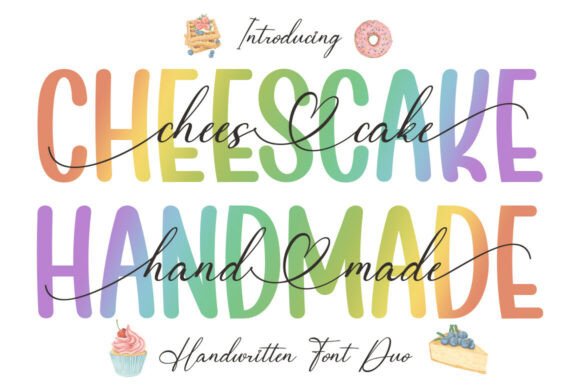
Introducing Cheescake Handmade Duo Font: Add a Romantic Touch to Your Creations
In the world of typography, fonts play a crucial role in conveying emotions and setting the tone for various creative projects. If you’re looking for a stylish and delicate duo font that can add a romantic touch to your designs, look no further than Cheescake Handmade Duo. This beautiful font is a perfect combination of display and script fonts, making it suitable for a wide range of applications, from greeting cards to headlines.
Key Features of Cheescake Handmade Duo Font
- Stylish and Delicate Design: Cheescake Handmade Duo boasts a unique and elegant design that is sure to capture the attention of your audience. Its delicate strokes and stylish curves make it perfect for creating romantic and whimsical designs.
- Duo Font: This font comes with two font styles – display and script. The display font is perfect for headlines, titles, and other attention-grabbing elements, while the script font is ideal for adding a personal touch to your designs.
- Wide Range of Applications: This font is versatile and can be used for a variety of projects, including greeting cards, invitations, headlines, and more.
Benefits of Using Cheescake Handmade Duo Font
Using Cheescake Handmade Duo font can bring numerous benefits to your designs. Here are a few:
- Adds a Romantic Touch: As mentioned earlier, this font is perfect for creating romantic and whimsical designs. It’s ideal for Valentine’s Day, wedding, or anniversary-themed projects.
- Enhances Readability: The clear and delicate design of Cheescake Handmade Duo font ensures that your text is readable, even at small font sizes.
- Increases Versatility: With two font styles and PUA encoding, you can use Cheescake Handmade Duo font for a wide range of projects, from digital designs to print materials.
- Unique and Eye-catching: This font’s unique design ensures that your creations stand out from the crowd and grab the attention of your audience.
How to Use Cheescake Handmade Duo Font
Using Cheescake Handmade Duo font is easy and straightforward. Here are a few tips:
- Pair it with Other Fonts: You can pair Cheescake Handmade Duo font with other fonts to create a unique and visually appealing design.
- Experiment with Font Sizes: Try using different font sizes to create visual hierarchy and add emphasis to your text.
- Use it for Headlines and Titles: Cheescake Handmade Duo font is perfect for headlines and titles, where you want to grab the attention of your audience.
Design Inspiration with Cheescake Handmade Duo Font
Here are a few design ideas to get you started with Cheescake Handmade Duo font:
- Wedding Invitations: Create beautiful and romantic wedding invitations with Cheescake Handmade Duo font.
- Valentine’s Day Cards: Design lovely Valentine’s Day cards with this font and add a personal touch to your gift.
- Headlines and Titles: Use Cheescake Handmade Duo font for headlines and titles in your blog posts, articles, or social media graphics.
- Greeting Cards: Create stunning greeting cards for special occasions, such as birthdays, anniversaries, or Christmas.
In conclusion, Cheescake Handmade Duo font is a beautiful and versatile duo font that can add a romantic touch to your designs. With its stylish and delicate design, PUA encoding, and wide range of applications, this font is perfect for various creative projects. Whether you’re a designer, artist, or DIY enthusiast, Cheescake Handmade Duo font is a great addition to your font collection.